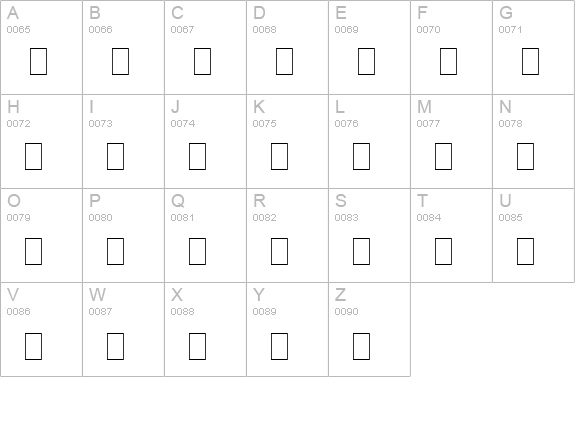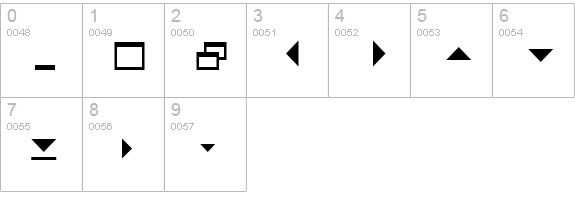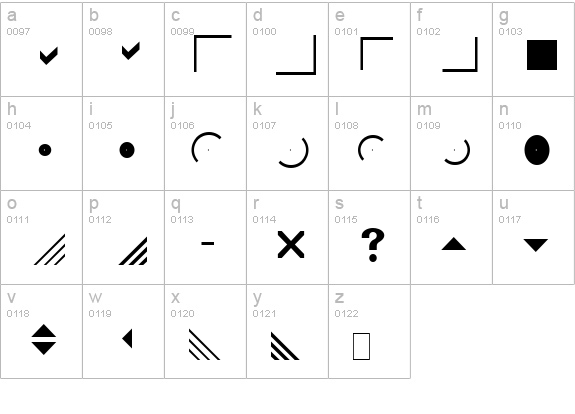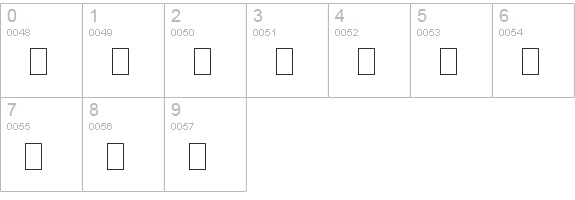
Marlett font is a versatile and elegant typeface that exudes sophistication and charm. Known for its clean lines and modern design, Marlett font is perfect for a wide range of creative projects, from branding to editorial design. With its stylish and timeless appeal, this font is sure to make a lasting impression on any audience. The best part about Marlett font is that it is available for free download at FontsMarket.com. This means you can easily access and use this beautiful font in your projects without any cost. Whether you're a graphic designer, a blogger, or a business owner looking to elevate your branding, Marlett font is the perfect choice for adding a touch of class and professionalism to your work. Download Marlett font today and take your designs to the next level!